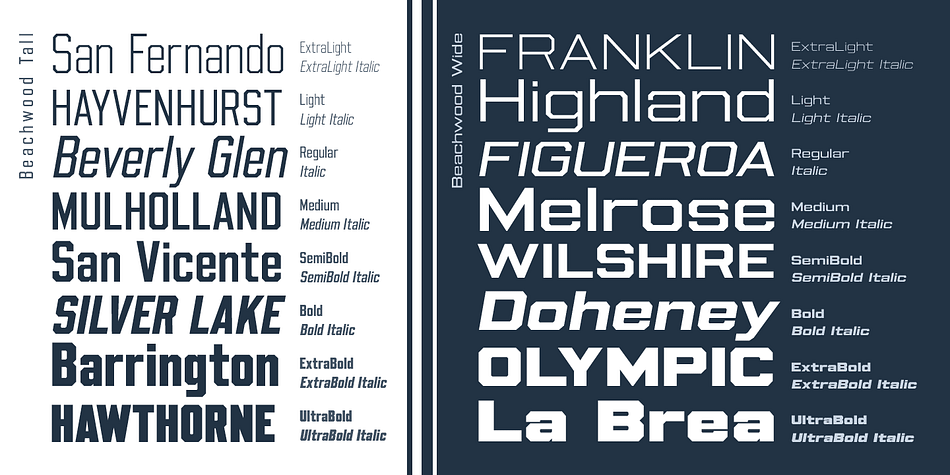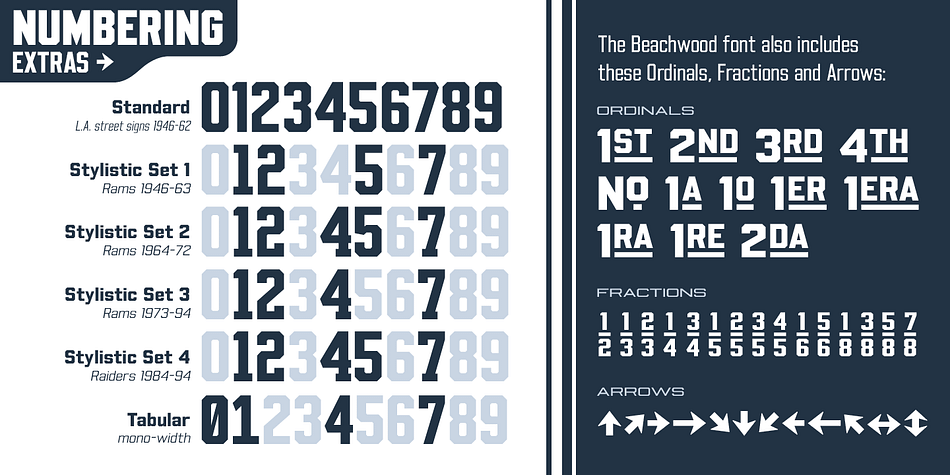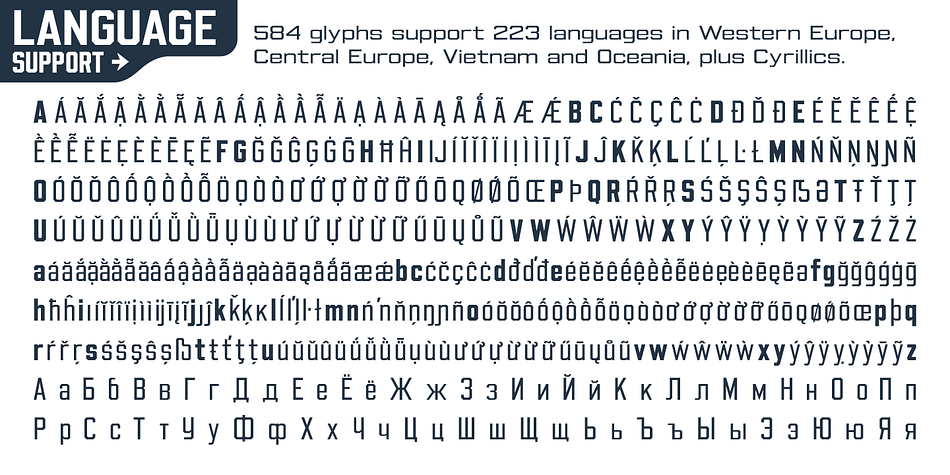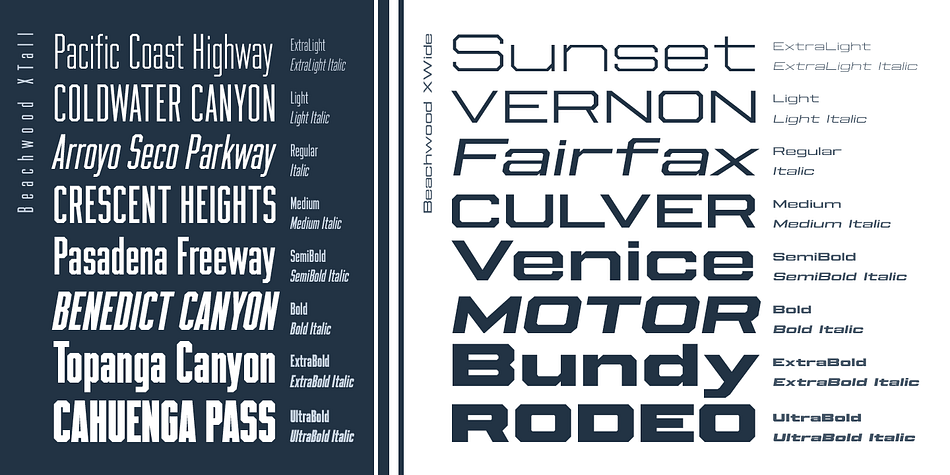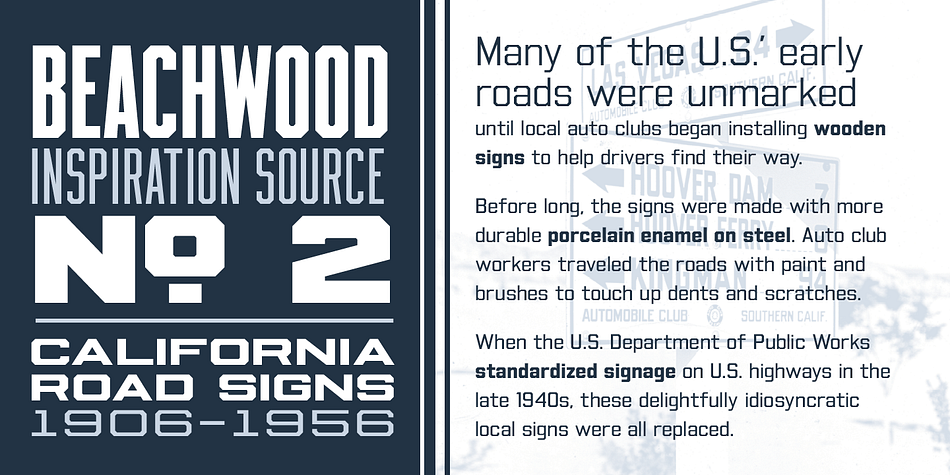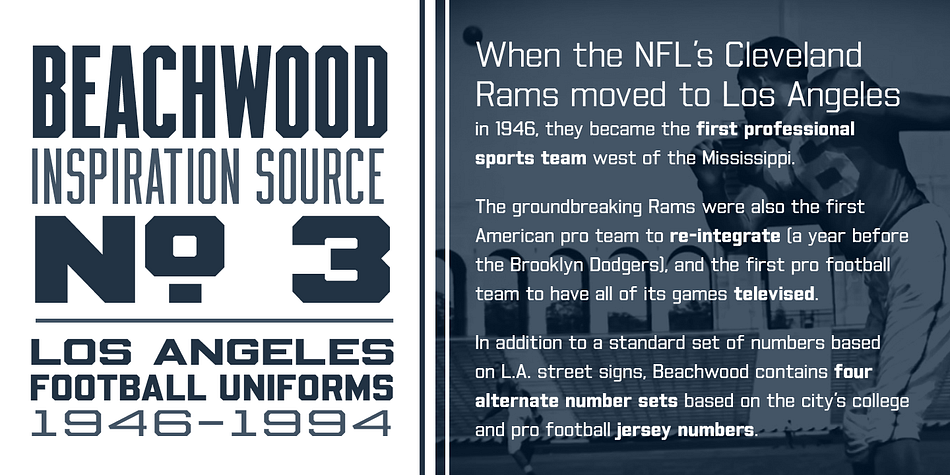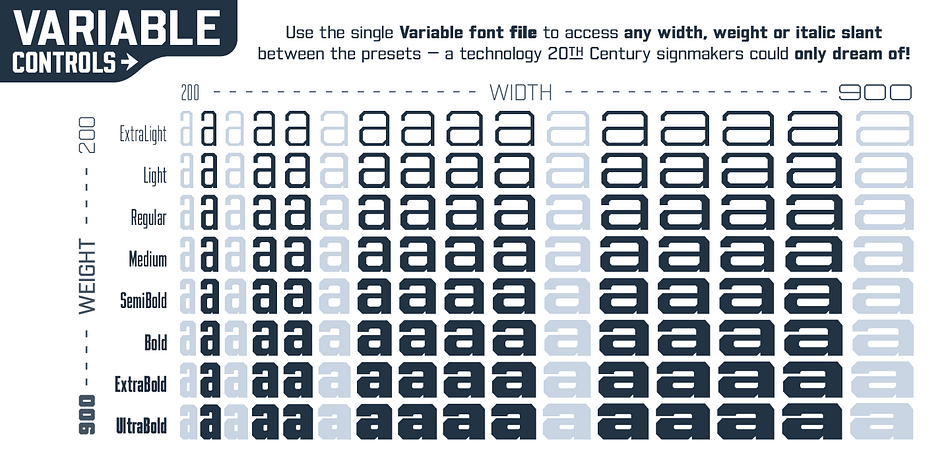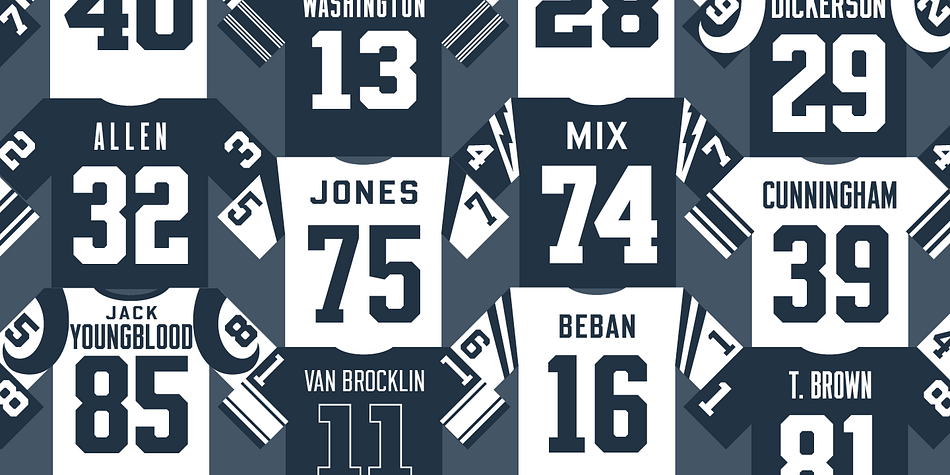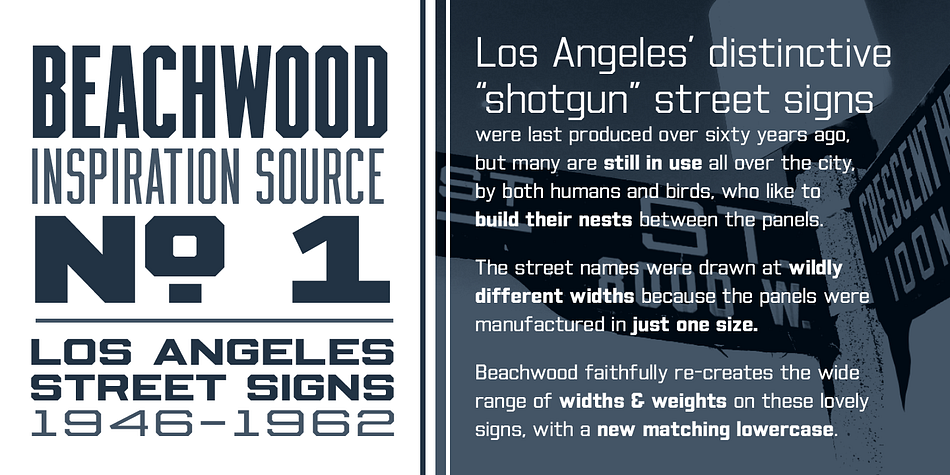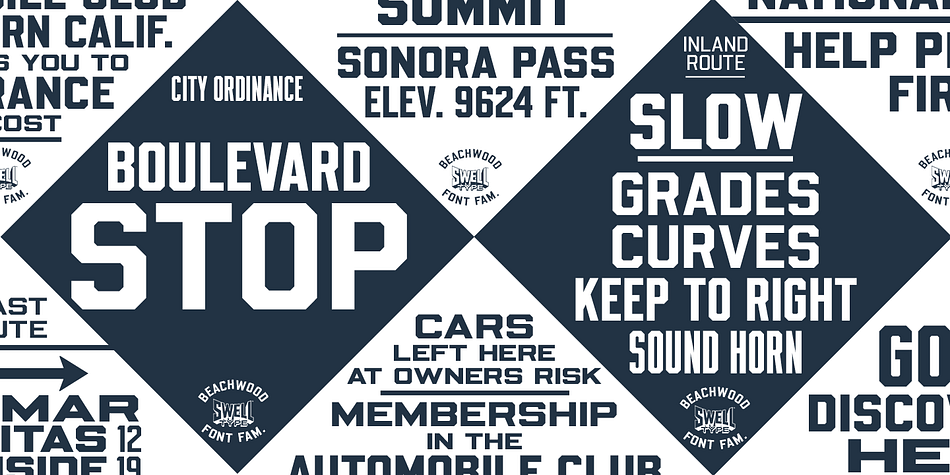
Designed by John Roshell, Beachwood is a sans serif font family. This typeface has eighty-one styles and was published by Swell Type.
Los Angeles’ distinctive “shotgun” style street signs were last produced over sixty years ago, but these durable porcelain and steel signs are still in use all over the city, by both humans and birds, who like to build their nests between the panels.
The street names were drawn at wildly different widths to fit on panels which were manufactured in only one size. Beachwood faithfully captures the extreme range of widths & weights on these vintage signs, and adds a new matching lowercase. Use the Beachwood Variable font file to access any width, weight or italic angle between the presets — a technology 20th Century sign painters could only dream of!
Each weight of Beachwood includes numbers based on the street signs, plus four alternate number sets based on the jerseys of Los Angeles’ pro football teams.
Beachwood is named for Beachwood Drive, the street which leads to the famous HOLLYWOOD sign, so we just had to include a bouncy HOLLYWOOD mode!
FAMILY FEATURES:
- Five widths (from XTall to XWide), with eight Weights (from ExtraLight to UltraBold), each with matching italics
- Variable font to access any width, weight or italic slant
EACH WEIGHT INCLUDES:
- 584 glyphs to support 223 languages in Western Europe, Central Europe, Vietnam and Oceania, plus Cyrillics
- Five styles of numbers, plus Tabular Lining for screen display
- Ordinals, Fractions and Arrows
- Hollywood mode